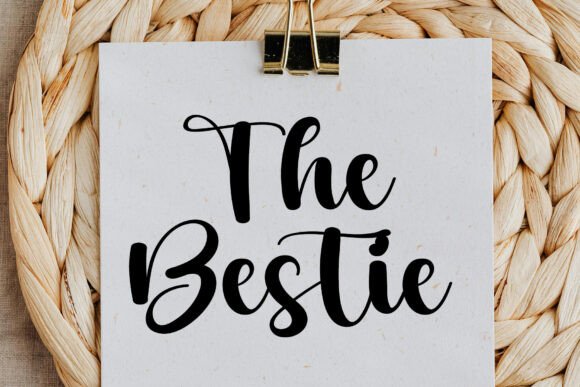
Cursive Delight Font: The Sweet and Elegant Choice for Your Design Needs
In the world of typography, fonts play a crucial role in conveying the tone and personality of a brand or design. When it comes to creating a romantic, joyful, and elegant look, Cursive Delight Font is an excellent choice. This sweet and cursive handwritten font is perfect for a variety of design ideas, adding a touch of sophistication and whimsy to any project.
The Charm of Cursive Delight Font
Cursive Delight is a beautiful, cursive handwritten font that exudes a sense of warmth and friendliness. Its gentle curves and flowing lines make it an ideal choice for designs that require a personal touch. Whether you’re working on a branding project, logo design, wedding materials, greeting cards, or fashion lookbooks, Cursive Delight Font is sure to impress.
Key Features of Cursive Delight Font
- Sweet and Cursive Handwritten Style: Cursive Delight Font features a beautiful, cursive handwritten style that adds a touch of elegance and sophistication to any design.
- Versatile and Adaptable: This font is perfect for a wide range of design projects, from branding and logos to wedding materials and greeting cards.
- Joysful and Romantic Touch: Cursive Delight Font adds a joyful and romantic touch to any design, making it ideal for projects that require a personal and whimsical feel.
- Fancy, Elegant, yet Casual: This font strikes the perfect balance between elegance and casualness, making it suitable for designs that require a sophisticated yet approachable look.
Use Cases for Cursive Delight Font
Cursive Delight Font is a versatile font that can be used in a variety of design projects. Here are some of the most popular use cases:
Branding and Logo Design
Cursive Delight Font is an excellent choice for branding and logo design. Its elegant and sophisticated look makes it perfect for creating a strong brand identity. Whether you’re designing a logo for a fashion brand, a beauty company, or a food business, Cursive Delight Font is sure to make a lasting impression.
Wedding Materials
Cursive Delight Font is a popular choice for wedding materials, such as wedding invitations, save-the-date cards, and thank-you notes. Its romantic and whimsical feel makes it perfect for creating beautiful and memorable wedding stationery.
Greeting Cards and Stationery
Cursive Delight Font is also great for designing greeting cards and stationery. Its elegant and cursive style makes it perfect for creating beautiful and heartfelt cards for special occasions, such as birthdays, anniversaries, and holidays.
Fashion and Lookbook Design
Cursive Delight Font is a popular choice for fashion and lookbook design. Its sophisticated and elegant look makes it perfect for showcasing fashion collections, highlighting product features, and creating stylish and trendy designs.
Why Choose Cursive Delight Font?
There are many reasons why Cursive Delight Font is an excellent choice for your design needs. Here are some of the top benefits:
Unique and Creative
Cursive Delight Font is a unique and creative font that will set your design apart from the rest. Its elegant and cursive style makes it perfect for creating beautiful and memorable designs.
Easy to Read and Understand
Cursive Delight Font is easy to read and understand, making it perfect for designs that require a clear and concise message.
Highly Versatile
Cursive Delight Font is highly versatile and can be used in a wide range of design projects, from branding and logos to wedding materials and greeting cards.
In conclusion, Cursive Delight Font is a sweet and elegant font that is perfect for a variety of design needs. Its cursive handwritten style, joyful and romantic touch, and fancy yet casual look make it an excellent choice for branding, logo design, wedding materials, greeting cards, fashion, and lookbook design. Whether you’re looking to create a beautiful and memorable design or simply want to add a touch of elegance and sophistication to your project, Cursive Delight Font is an excellent choice.